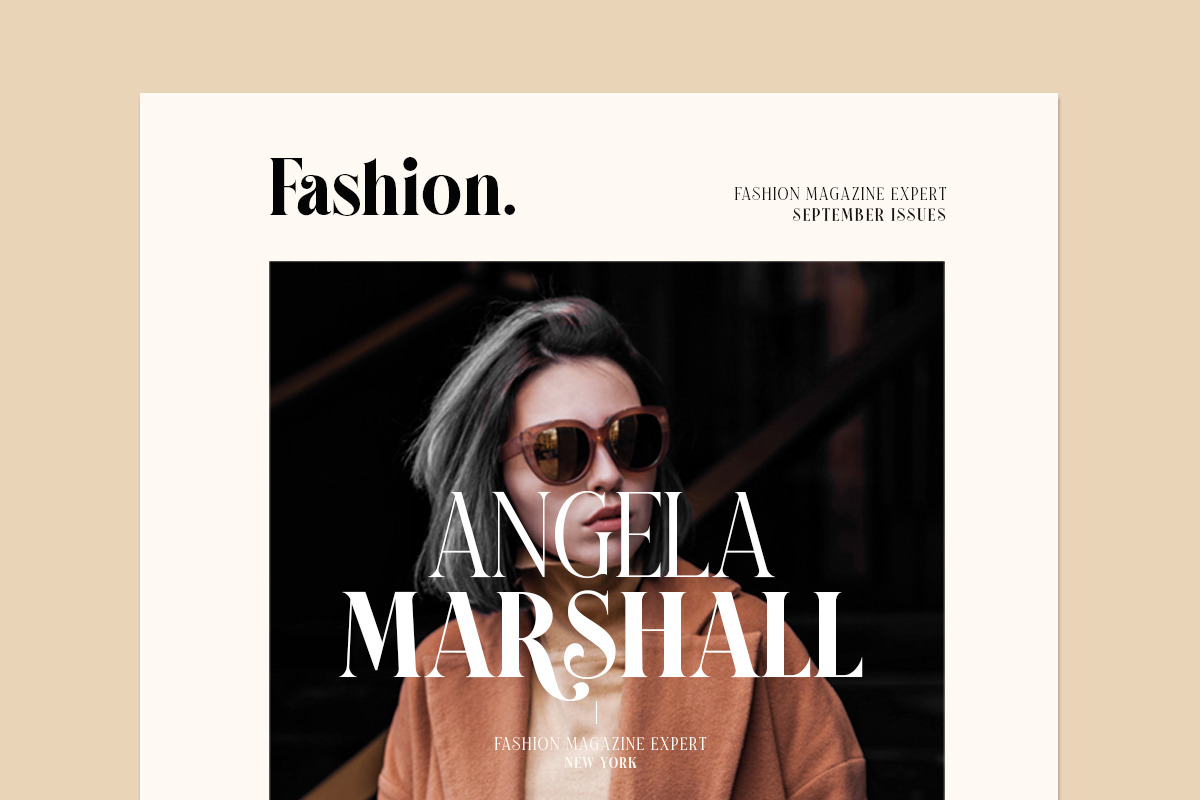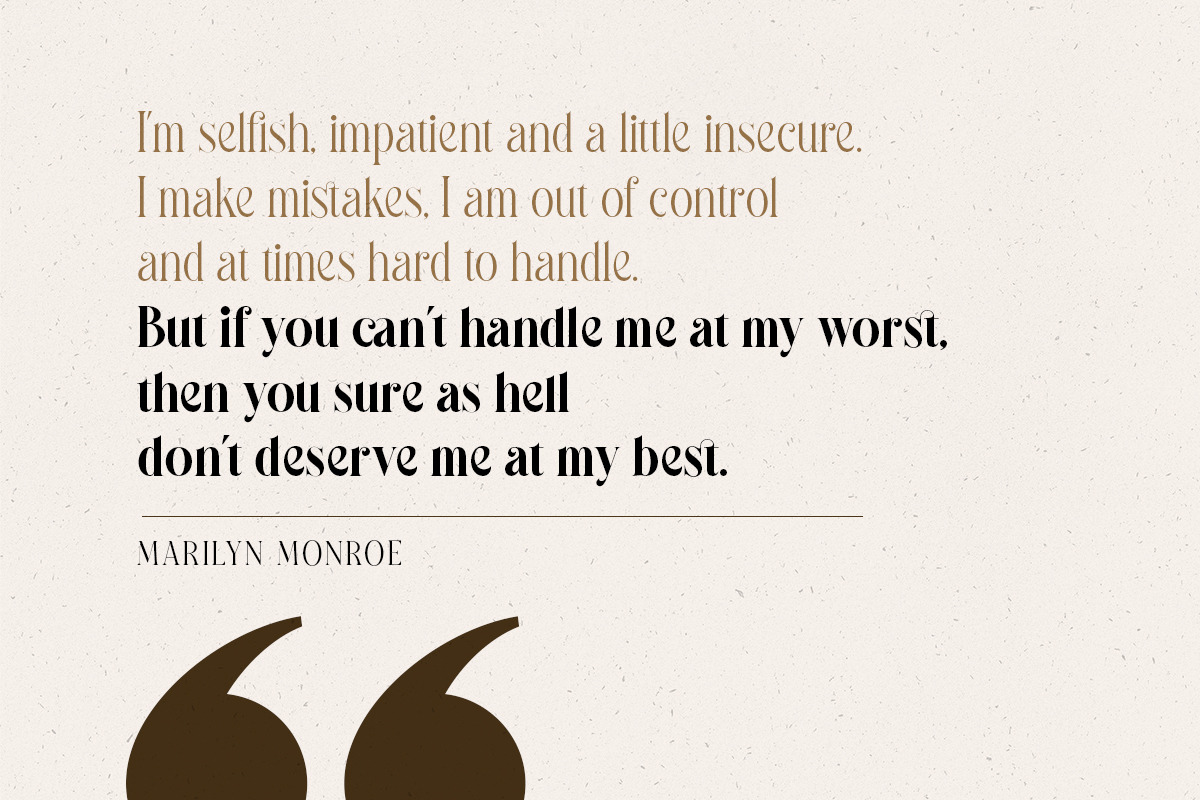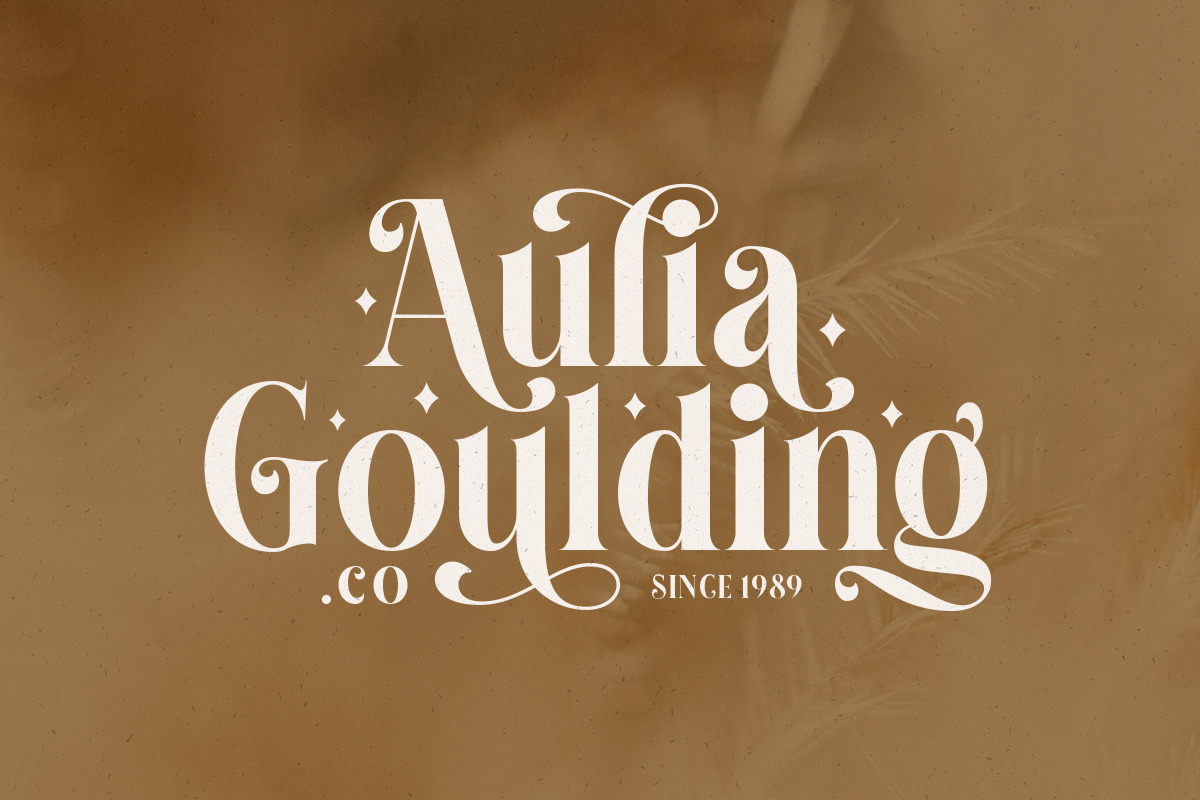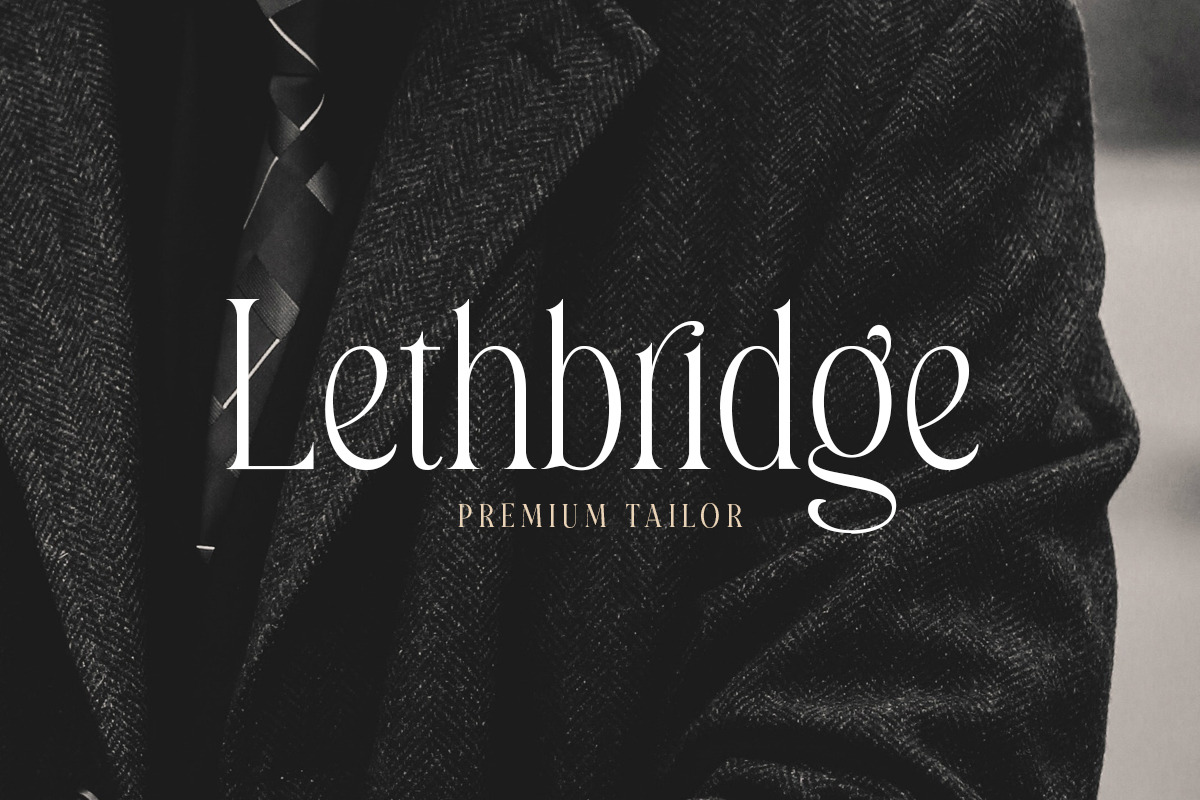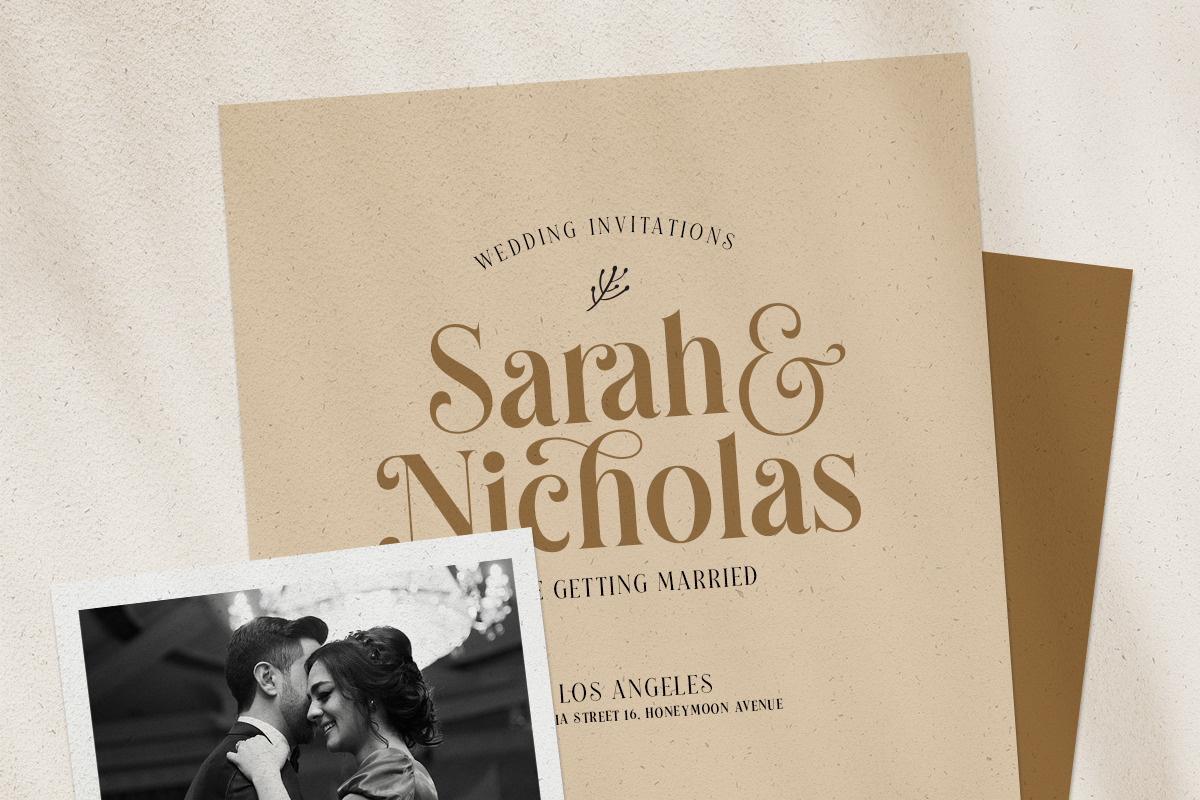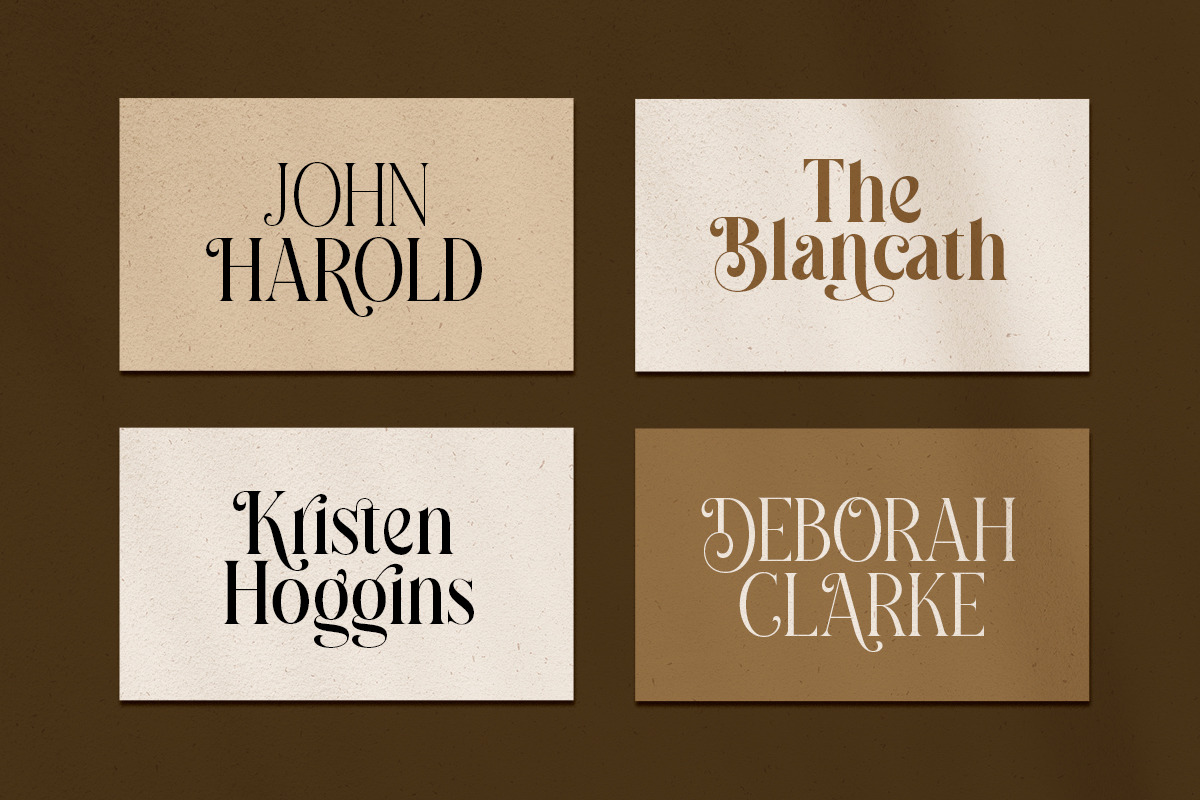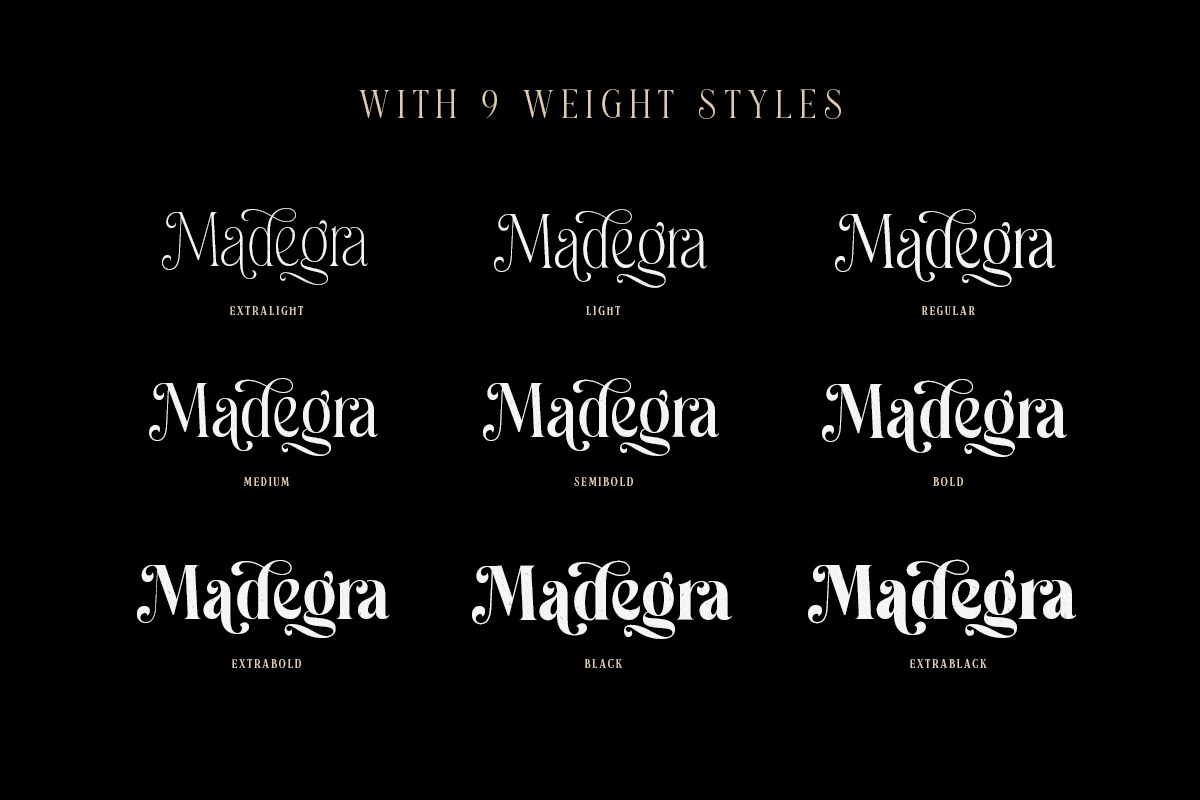
Madegra Serif (9 Weight Font Styles)
Introducing, Madegra, An Elegant Serif. This typeface has many alternates with swashes that can make your lettering / logotype become more interesting. The clean and neat of a serif combined with the swirl swashes makes this font even more unique. Especially since this family has 9 weight styles which you can choose according your needs!
This font perfectly made to be applied especially in logo, and the other various formal forms such as invitations, labels, logos, magazines, books, greeting / wedding cards, packaging, fashion, make up, stationery, novels, labels or any type of advertising purpose.